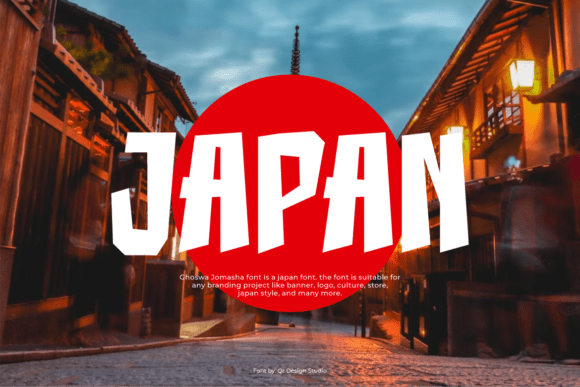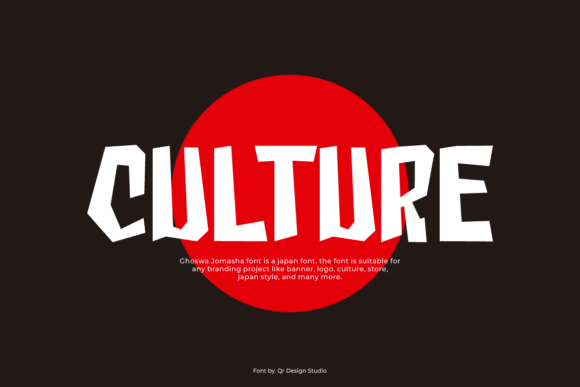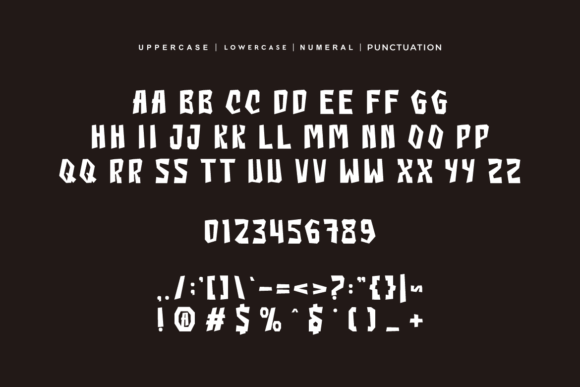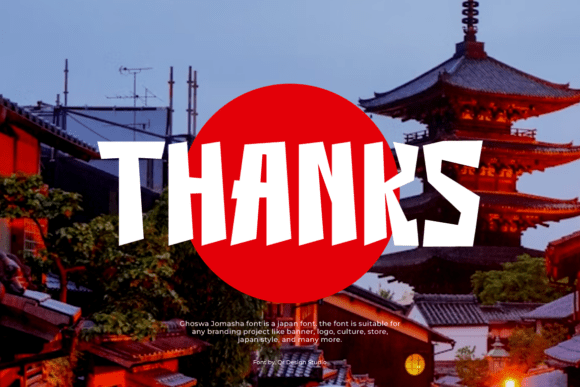
Ghoswa Jomasha Font: Unleashing the Power of Traditional Japanese Aesthetics
In the world of typography, fonts play a crucial role in conveying the tone and personality of a brand. For designers and crafters looking to infuse their work with a touch of cultural flair, the Ghoswa Jomasha font is an excellent choice. Inspired by traditional Japanese aesthetics and brushstroke energy, this bold and dynamic display font is perfect for creating striking visuals that capture the essence of Japanese culture.
The Inspiration Behind Ghoswa Jomasha
Ghoswa Jomasha draws inspiration from the rich cultural heritage of Japan, where traditional calligraphy and brushstrokes have been revered for centuries. The font’s creator aimed to capture the spirit of Japanese calligraphy while adding a modern twist, making it perfect for contemporary designs that require a bold and authentic look.
Key Features of Ghoswa Jomasha
So, what makes Ghoswa Jomasha stand out from other fonts? Here are some of its key features:
- Jagged Edges: The font’s jagged edges give it a dynamic and energetic feel, reminiscent of traditional Japanese brushstrokes.
- Strong, Angular Forms: The bold and angular forms of Ghoswa Jomasha make it perfect for creating striking visuals that demand attention.
- Cultural Authenticity: The font’s inspiration from traditional Japanese aesthetics ensures that it captures the essence of Japanese culture, making it ideal for Asian-themed branding and designs.
Use Cases for Ghoswa Jomasha
Ghoswa Jomasha is a versatile font that can be used in a variety of design projects, including:
- Asian-Themed Branding: Create bold and authentic brand identities that capture the essence of Japanese culture.
- Cultural Posters: Design striking posters that showcase Japanese traditions, festivals, or events.
- Martial Arts Events: Add a touch of cultural flair to martial arts event branding, flyers, or posters.
- Sushi Restaurant Logos: Create bold and eye-catching logos for sushi restaurants or Japanese eateries.
Why Choose Ghoswa Jomasha?
With so many fonts available, why choose Ghoswa Jomasha? Here are some compelling reasons:
- Authenticity: Ghoswa Jomasha delivers authenticity and cultural flair, making it perfect for designers and crafters looking to create designs that resonate with Japanese culture.
- Bold Identity: The font’s bold and dynamic design ensures that your work stands out from the crowd, making it perfect for designs that require a strong visual impact.
- Modern Twist: Ghoswa Jomasha’s modern twist on traditional Japanese aesthetics makes it perfect for contemporary designs that require a touch of cultural flair.
In conclusion, Ghoswa Jomasha is a powerful font that embodies the spirit of traditional Japanese aesthetics while adding a modern twist. Its bold and dynamic design makes it perfect for a variety of design projects, from Asian-themed branding to cultural posters and martial arts events. If you’re looking for a font that delivers authenticity and attitude in every letter, Ghoswa Jomasha is an excellent choice.